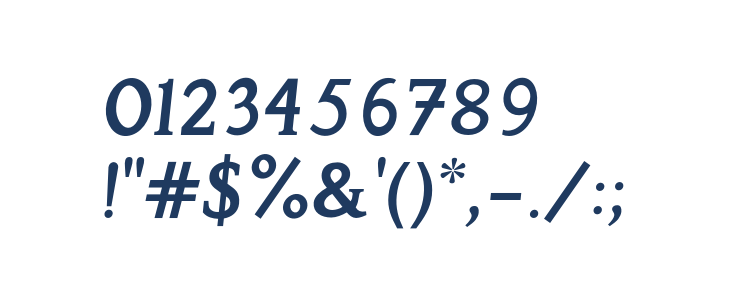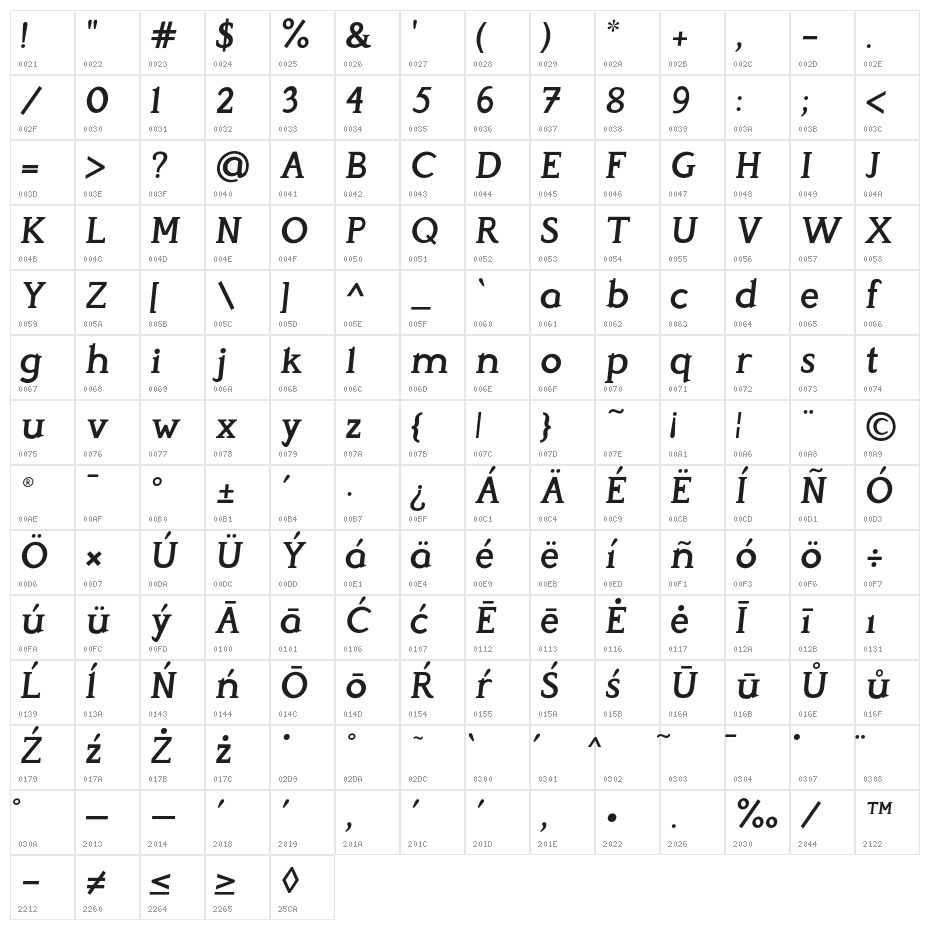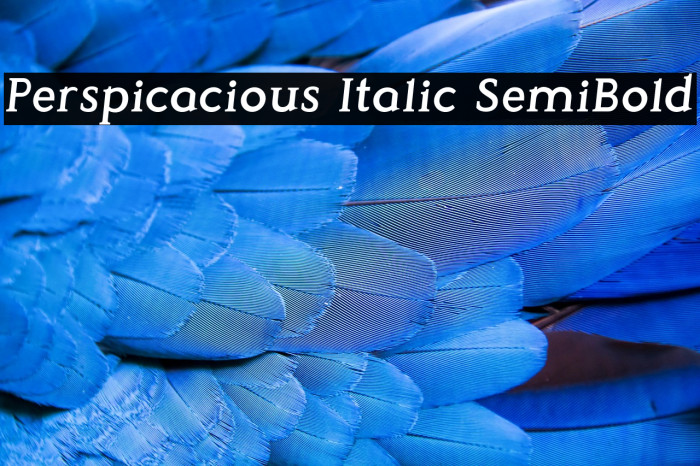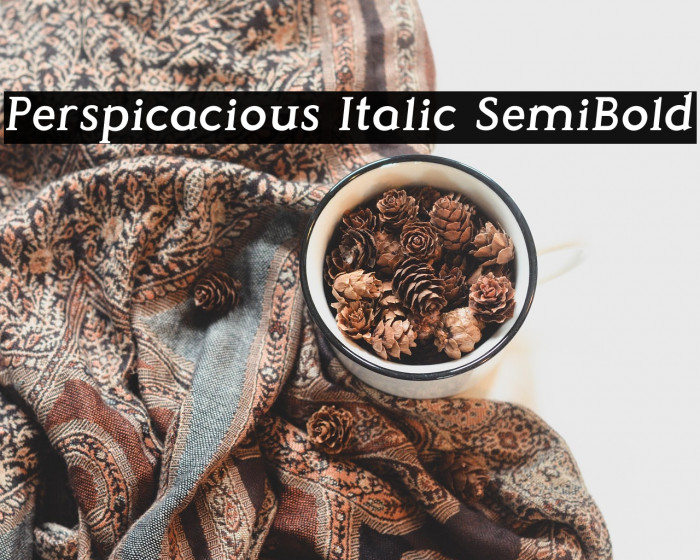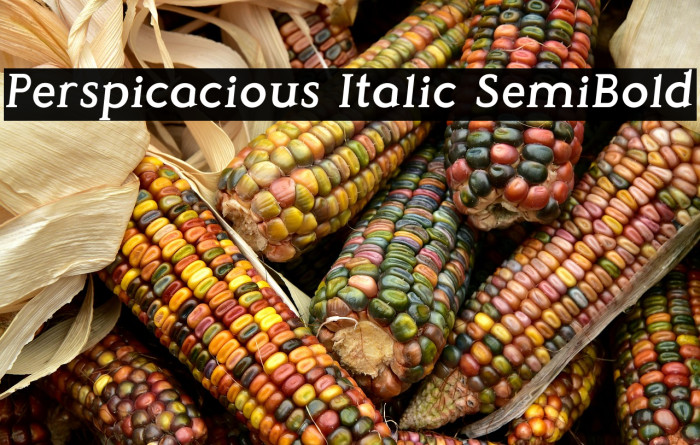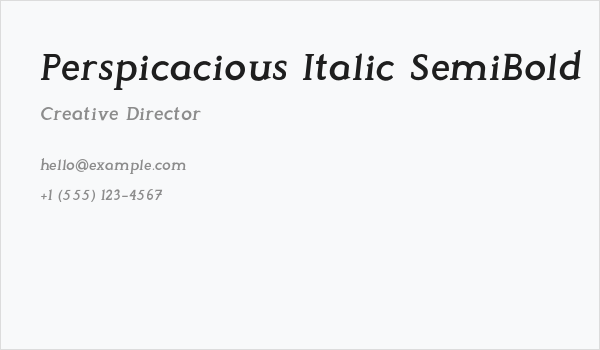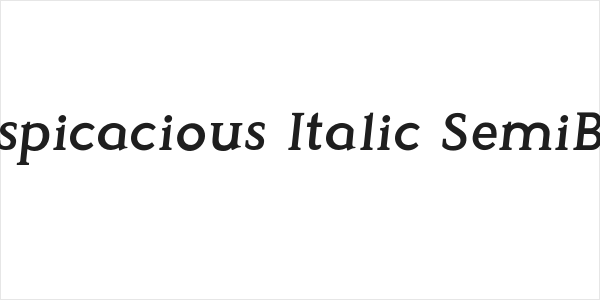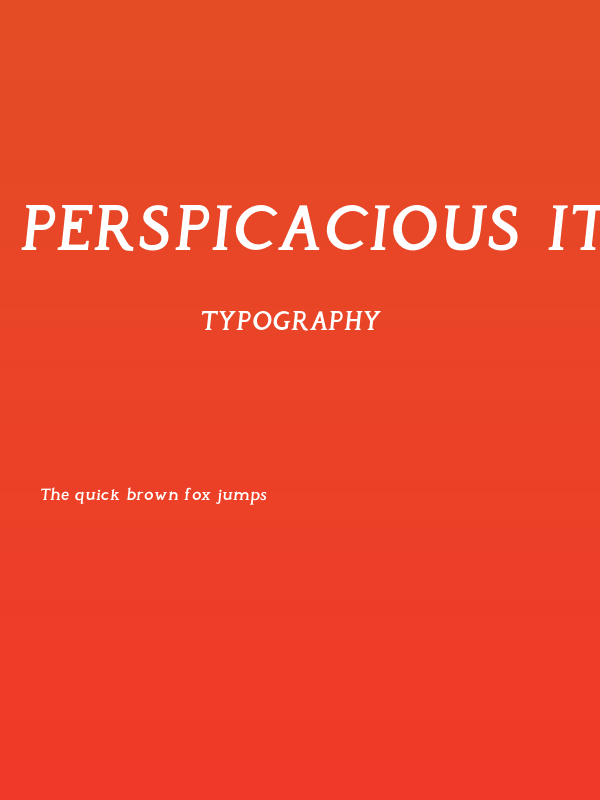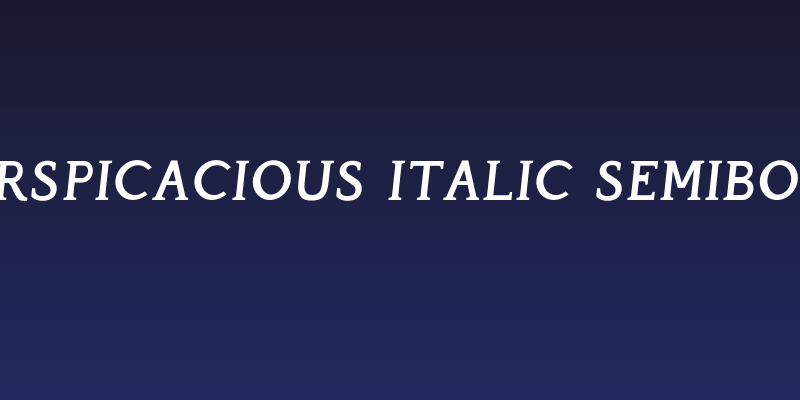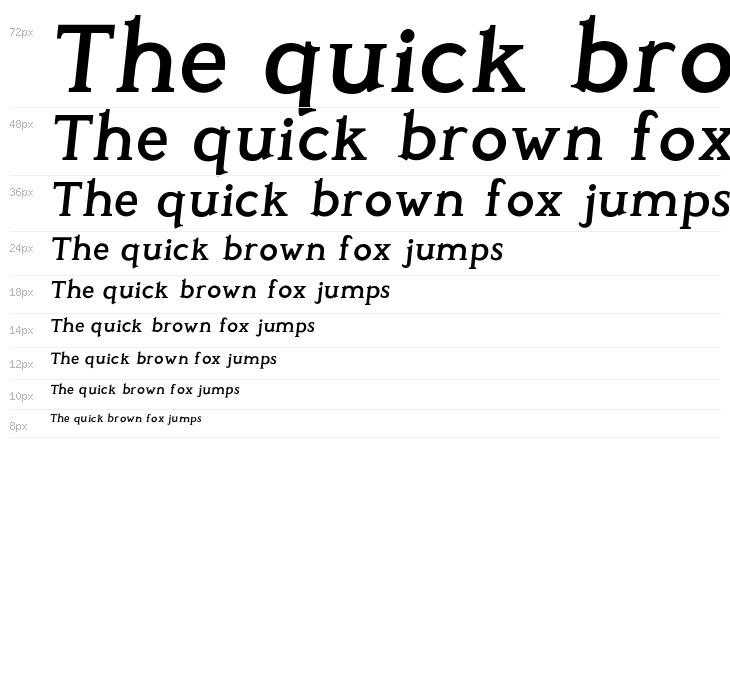
Perspicacious Italic SemiBold Font
Perspicacious Italic SemiBold Description
This font features a classic serif style with a modern twist, characterized by its semi-bold weight and italicized form. The letters have a slight slant, giving them a dynamic and elegant appearance. The serifs are pronounced yet refined, adding a touch of sophistication. The uppercase letters are well-proportioned, while the lowercase letters maintain a consistent flow, enhancing readability. The numerals are clear and distinct, matching the overall style of the alphabet. Special characters are designed with the same attention to detail, ensuring uniformity across all glyphs.
| Proposed Projects | Ideal for editorial design, book covers, branding projects, and elegant invitations. |